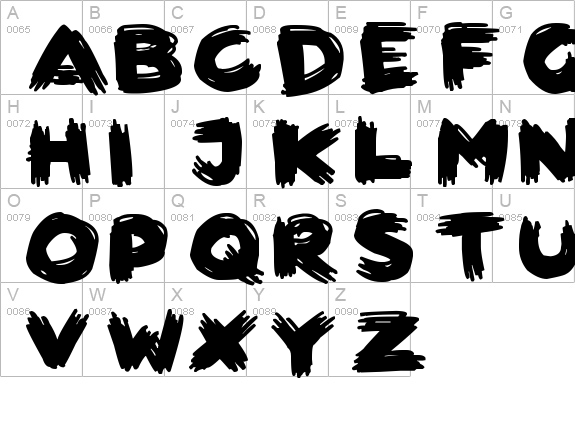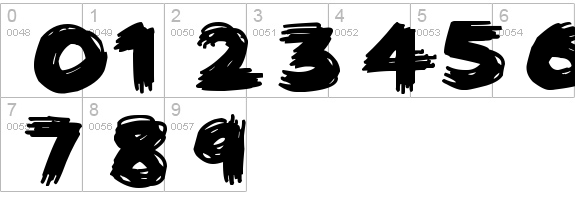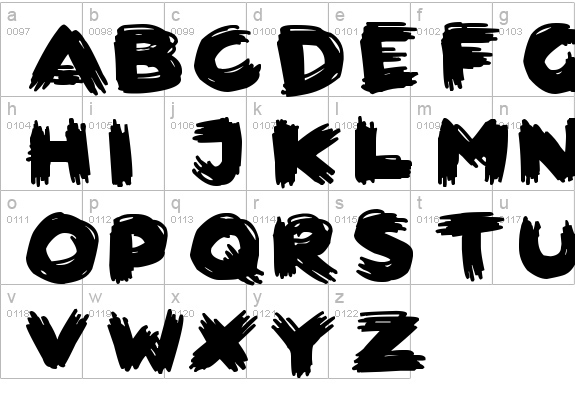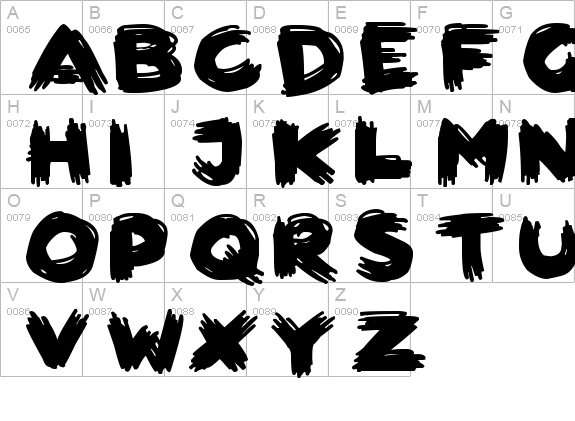
Scribbletastic Brush Font Details
Scribbletastic Brush is a free for personal use font in the Script > Brush category, designed by Darrell Flood. It has been downloaded 204 times and is available for Windows, Mac and Linux.
Scribbletastic Brush font is a whimsical and playful typeface that brings a unique hand-drawn charm to any design project. With its expressive strokes and artistic flair, this font is perfect for adding a touch of creativity to your work. Whether you're designing greeting cards, invitations, posters, or social media graphics, Scribbletastic Brush font will make your text stand out in a fun and eye-catching way.